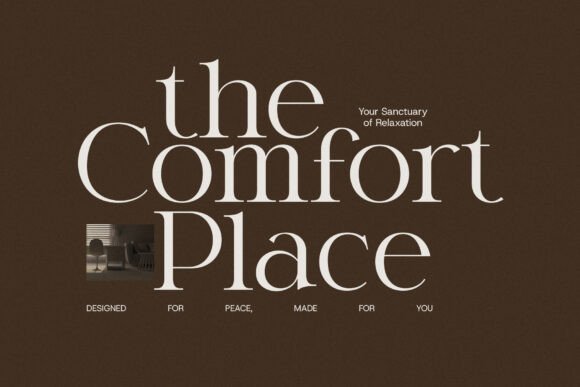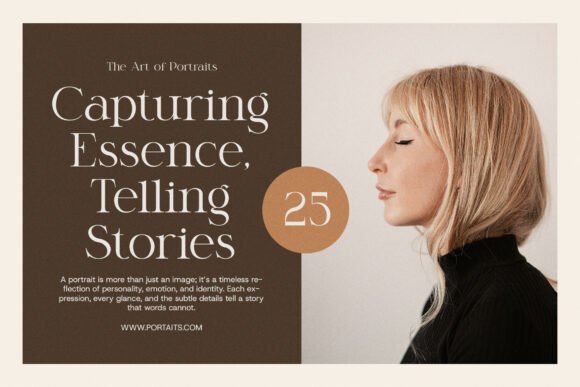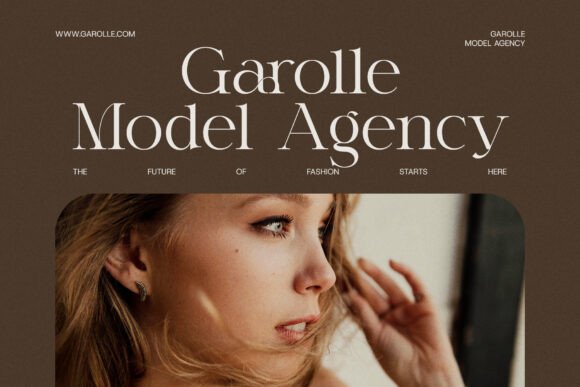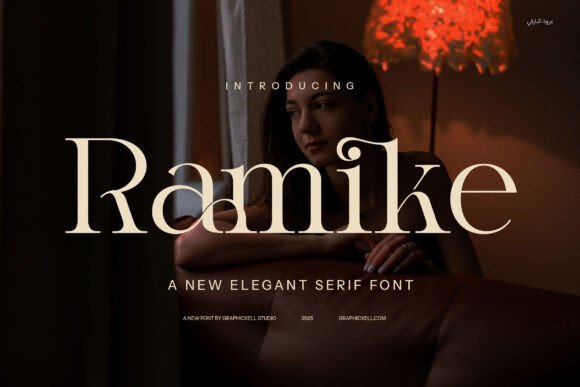
Introduction to Ramike Font
Ramike is a refined and sophisticated typeface designed to make a lasting impression.
Combining timeless serif features with a modern twist, Ramike brings elegance and style to any project Its clean lines, delicate curves, and unique ligatures set it apart from other serif fonts, making it the perfect choice for upscale branding, logos, websites, and editorial designs.